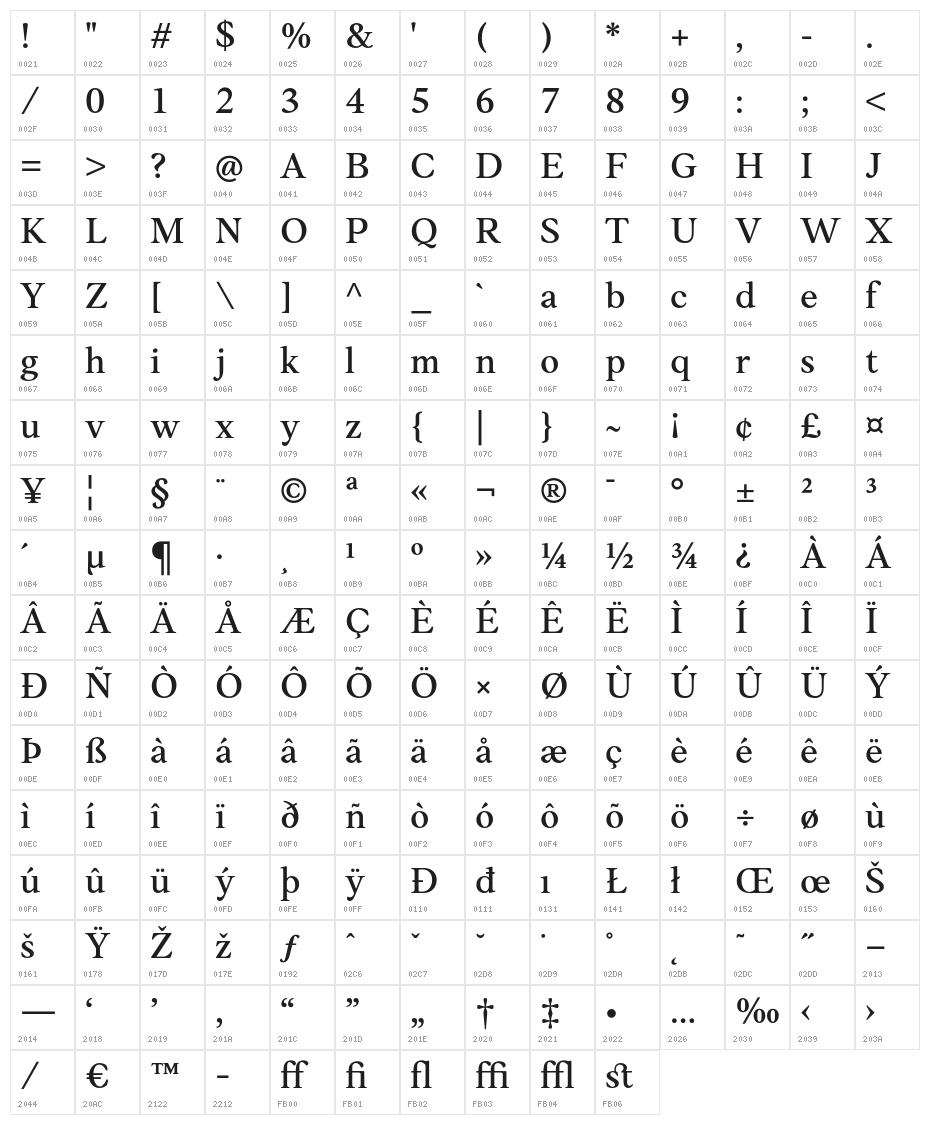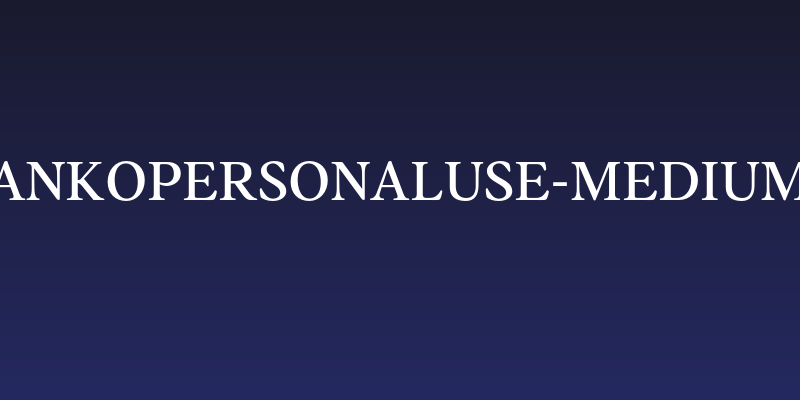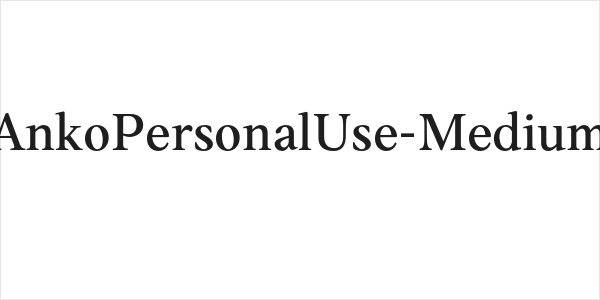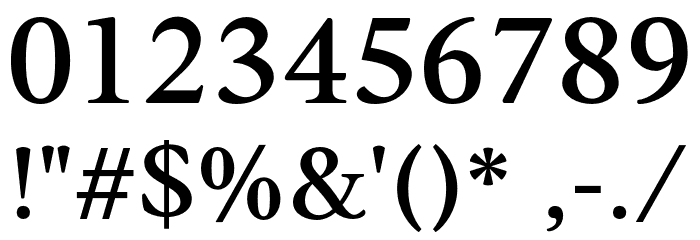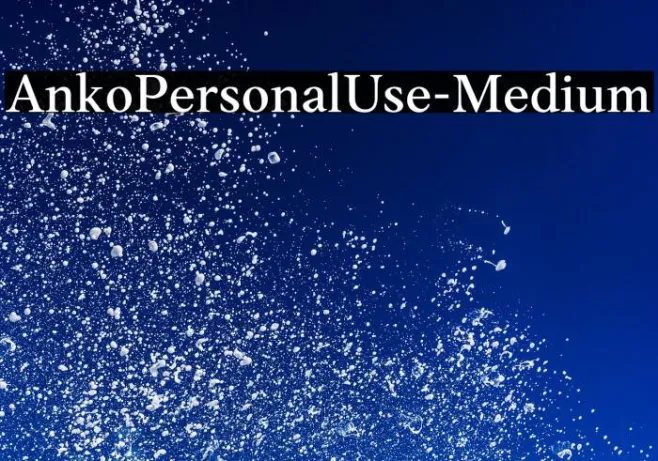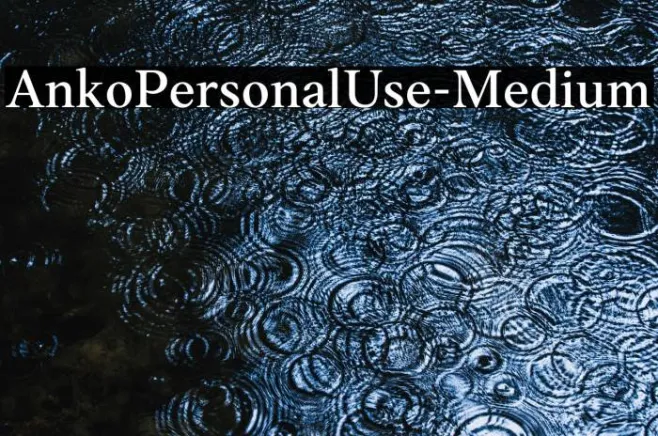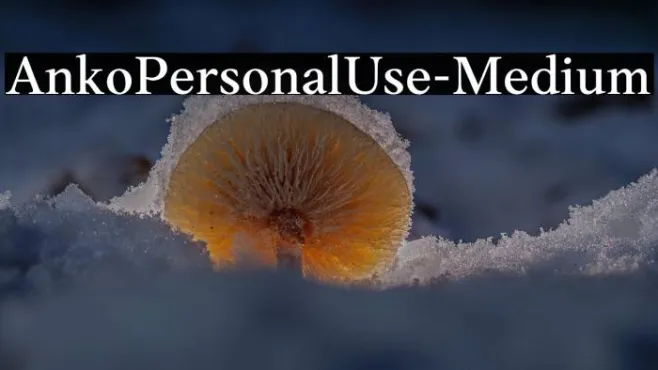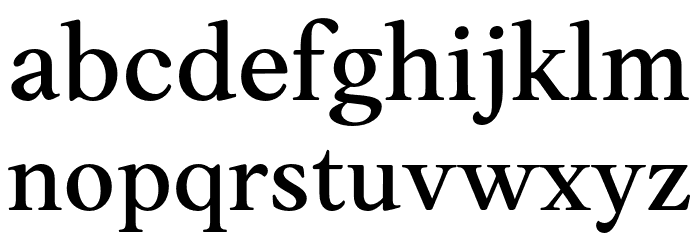
AnkoPersonalUse-Medium Font
AnkoPersonalUse-Medium Description
This font features a classic serif design with a balanced and elegant appearance. The uppercase letters are bold and commanding, while the lowercase letters maintain a refined and sophisticated look. The numerals are clear and well-proportioned, making them easy to read. Special characters are designed with the same attention to detail, ensuring consistency across all glyphs. The overall style is timeless, suitable for a variety of applications where a touch of elegance is desired.
| Proposed Projects | Ideal for book covers, editorial design, formal invitations, and branding projects that require a touch of sophistication. |